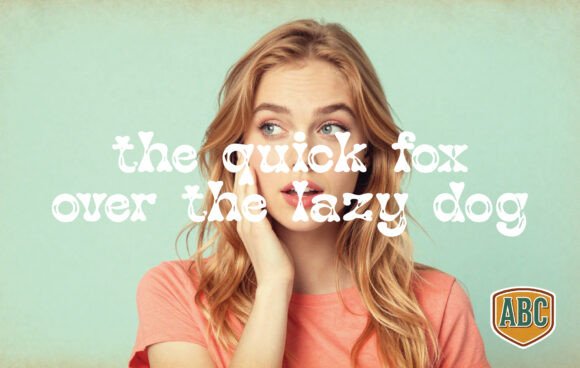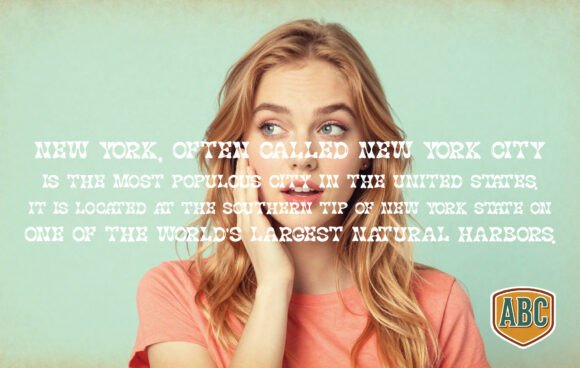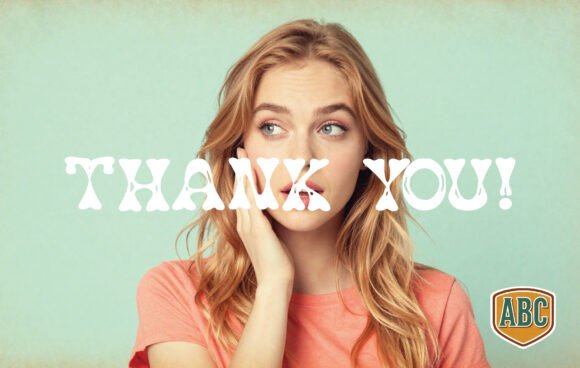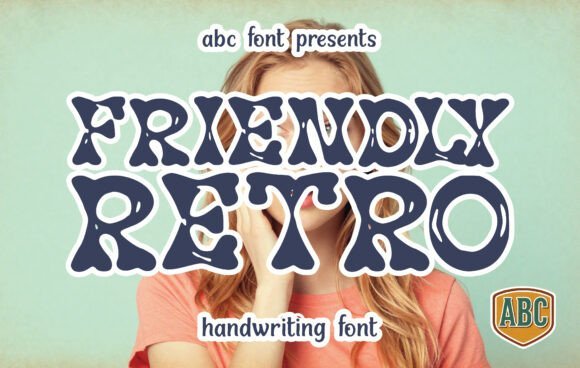
Introduction to Friendly Retro Font
Friendly Retro font strikes the perfect balance between structured display and hand-drawn charm.
This Friendly Retro typeface features a unique β€œwestern-meets-hippie” aesthetic, with subtle decorative notches and a rhythmic, swinging baseline It feels like a vintage hand-painted sign outside a 1960s boutique, offering a sense of community and handcrafted quality.
Key Features of Friendly Retro Font